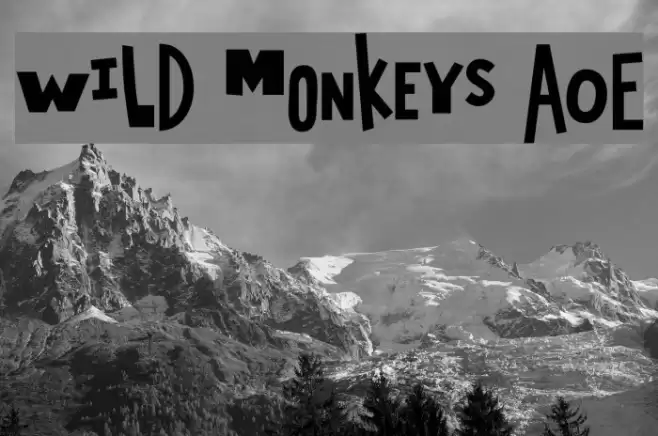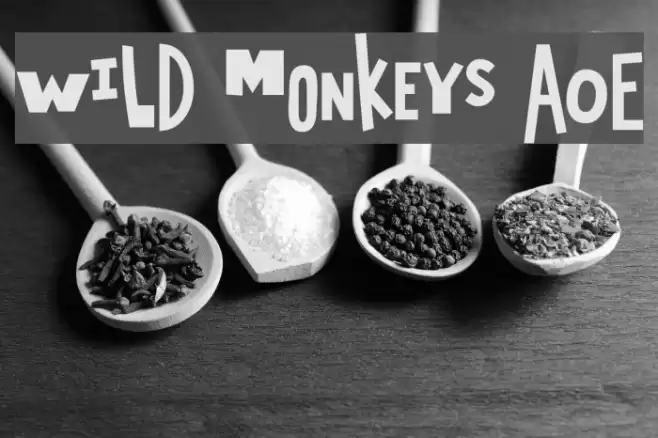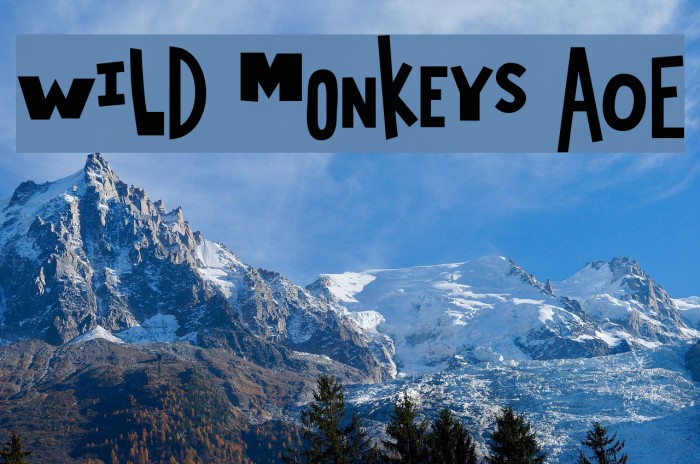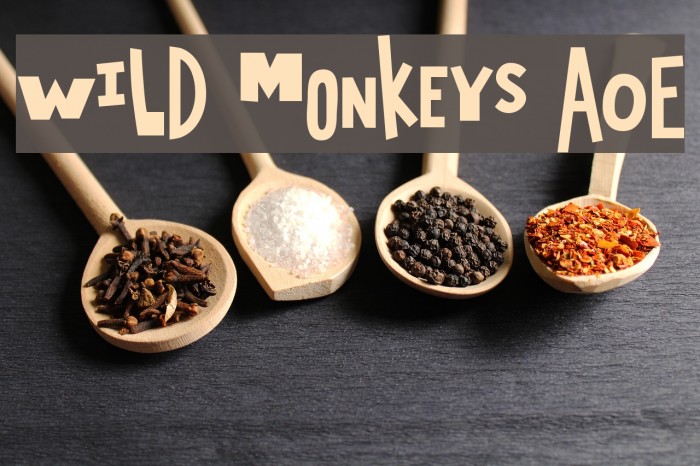
Wild Monkeys AOE Font
Wild Monkeys AOE Description
This font features a playful and quirky design with irregular shapes and varying stroke widths, giving it a lively and dynamic appearance. The letters are bold and slightly tilted, adding to the whimsical feel. The uppercase and lowercase characters maintain a consistent style, with exaggerated curves and angles that create a sense of movement. The numbers and special characters follow the same playful theme, making the font suitable for creative and informal projects. Its unique style is eye-catching and memorable, perfect for designs that aim to stand out.
A playful and quirky font with irregular shapes and bold strokes from Comic fonts.
- Proposed Projects: Ideal for children's books, comic strips, playful branding, party invitations, and creative posters.
- Overall Style: Playful